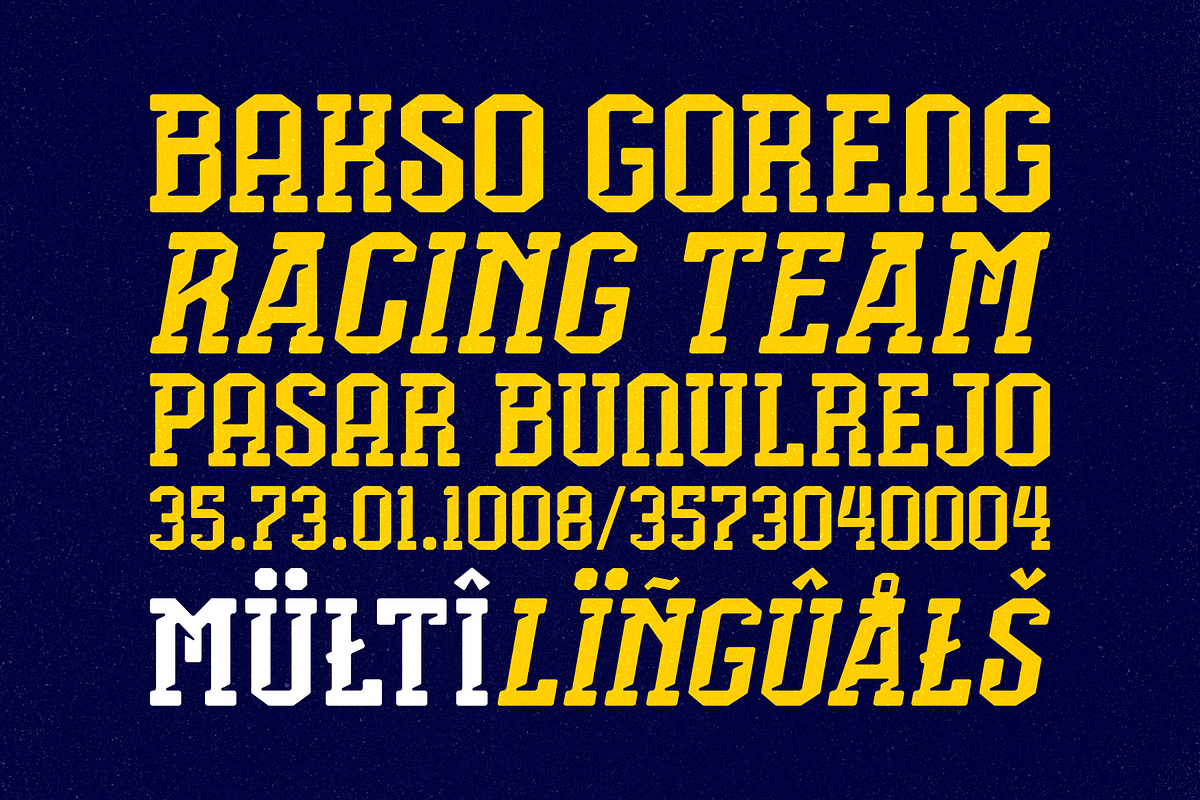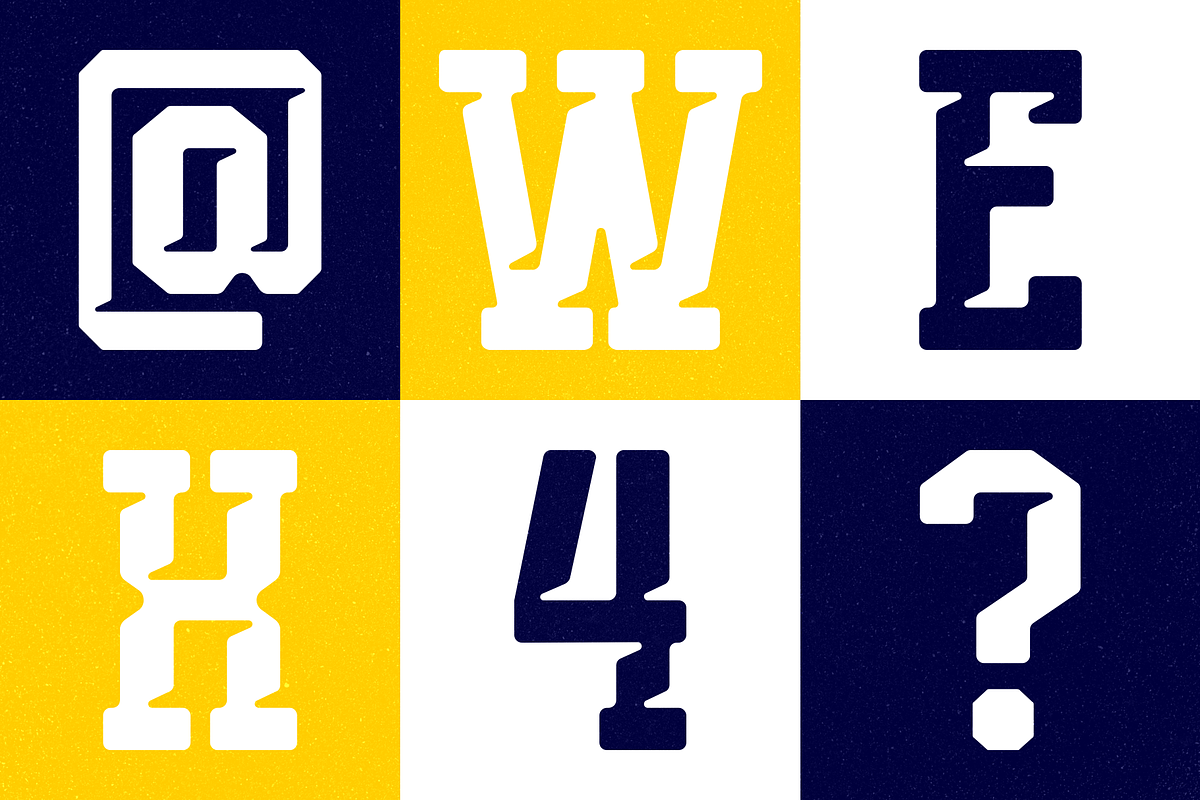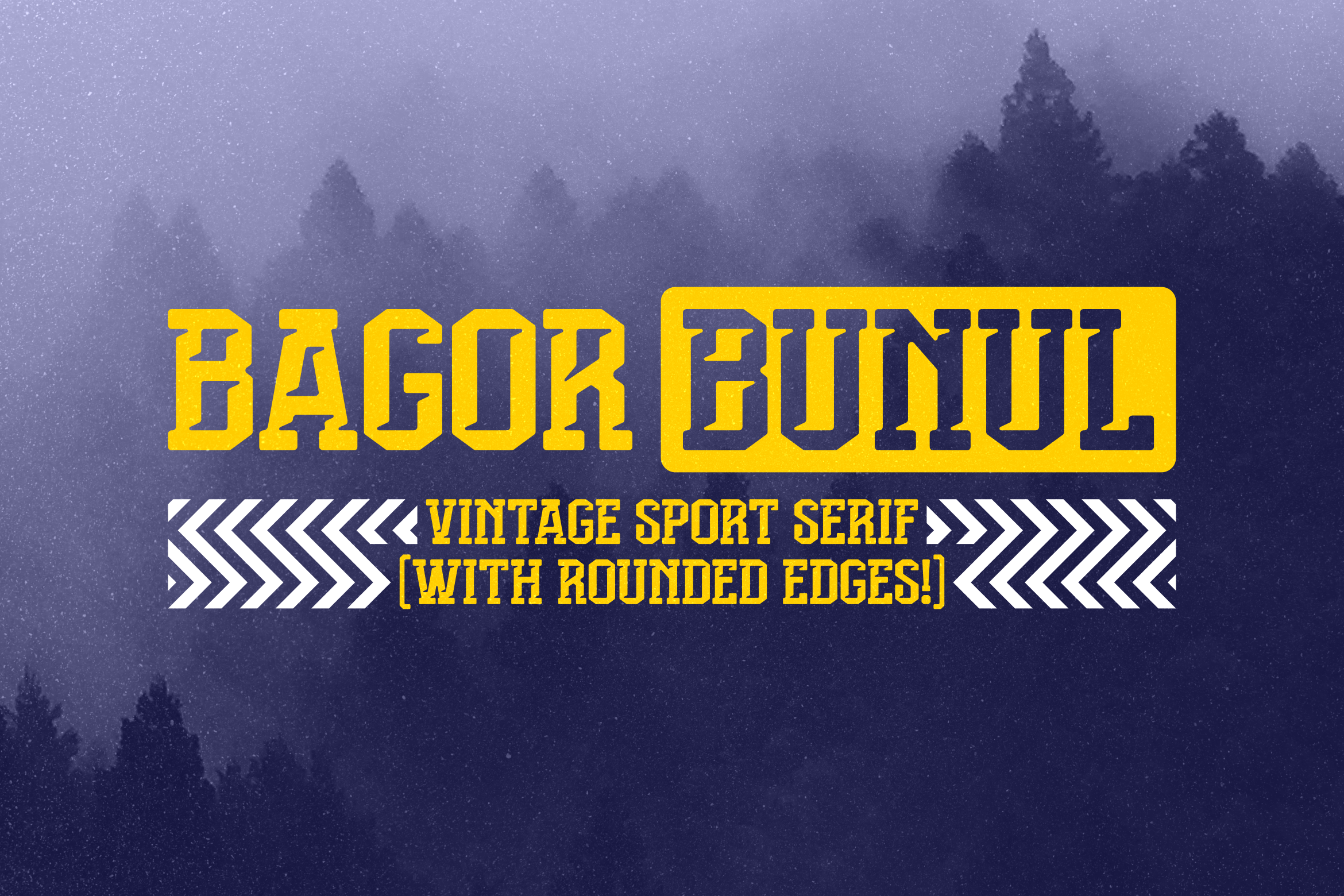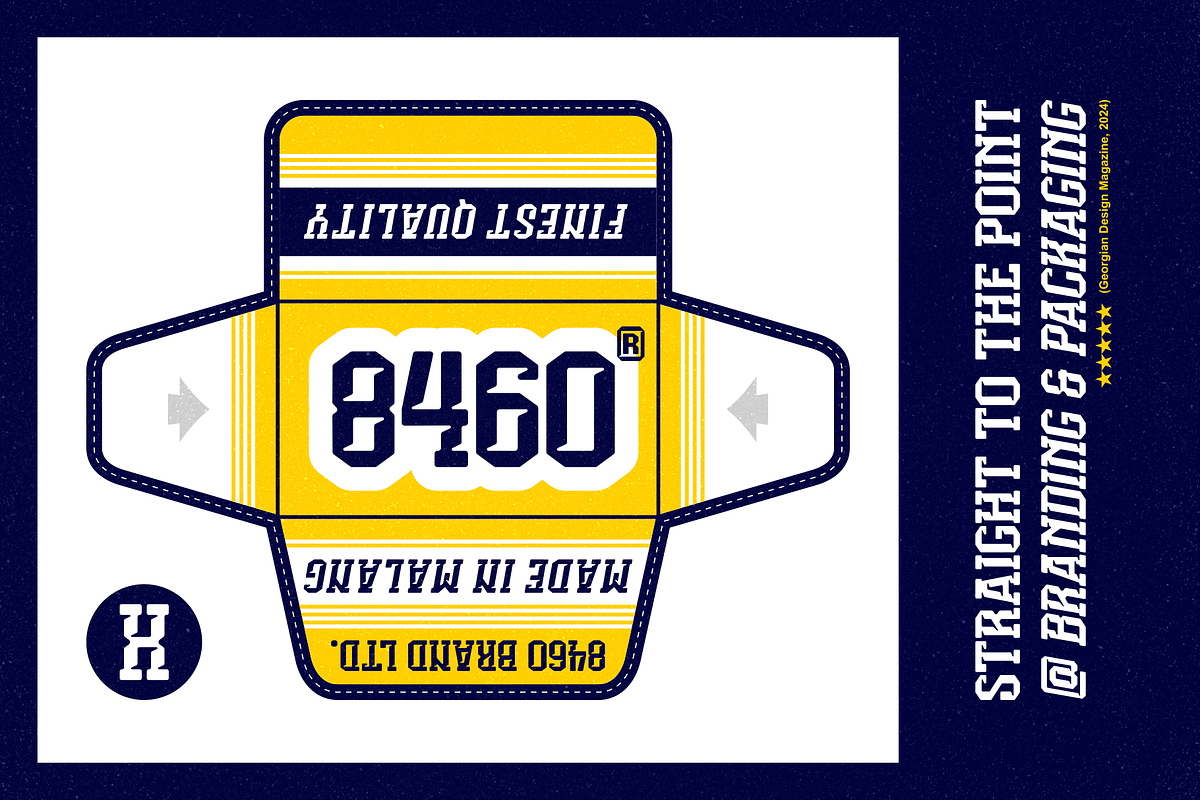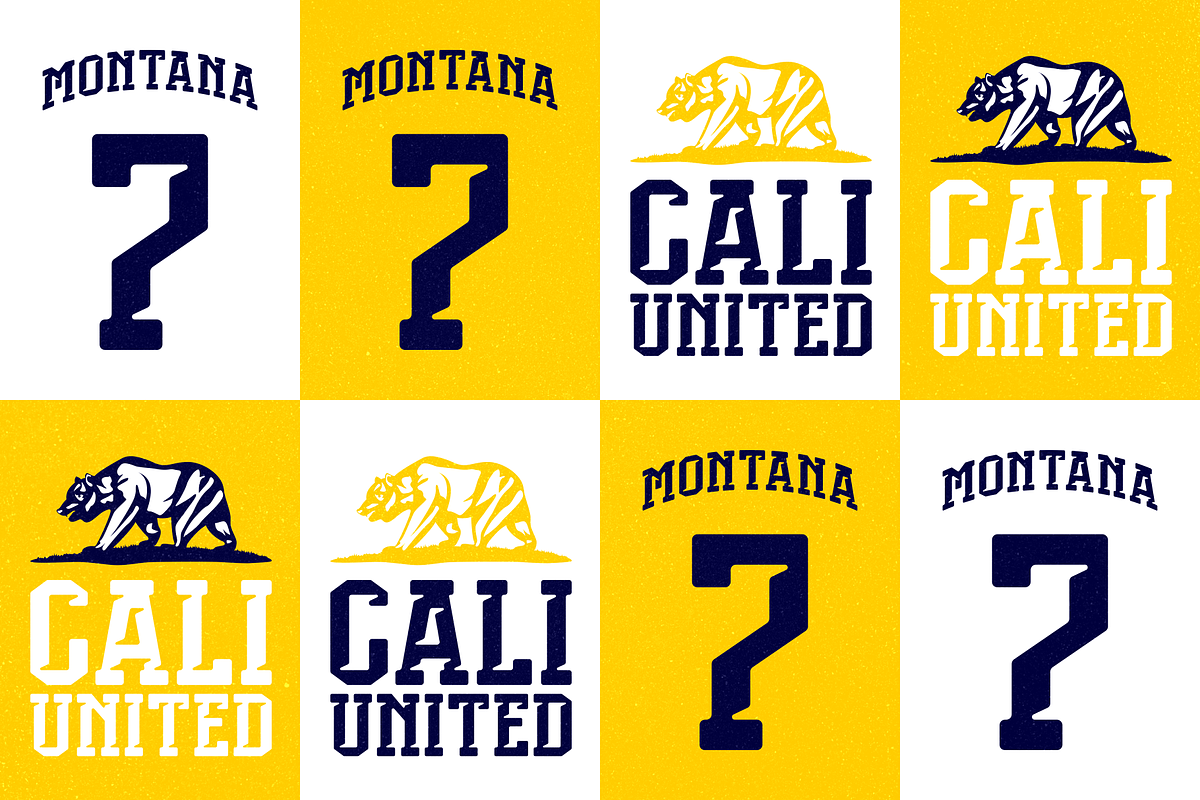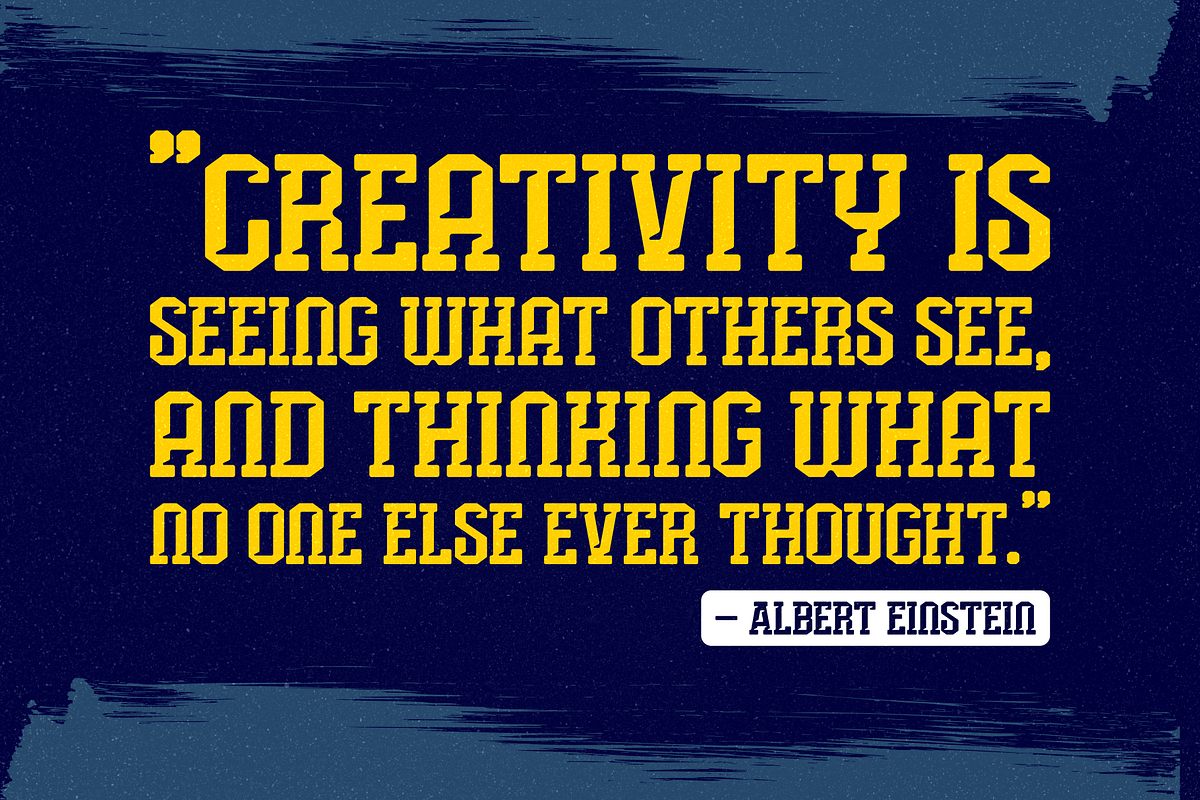
Bagor Bunul | Sport Font
Introducing Bagor Bunul, a blocky and tough looking font inspired by the classic letters that are used in sport's jersey/apparel. We made it relevant with today's trend by adding some details. This font is an all-caps one, so you can mix upper and lower case to explore the letter variations. Suits best for logo/branding, sports/e-sports design, headline, posters, etc.
- Available in Regular and Italic